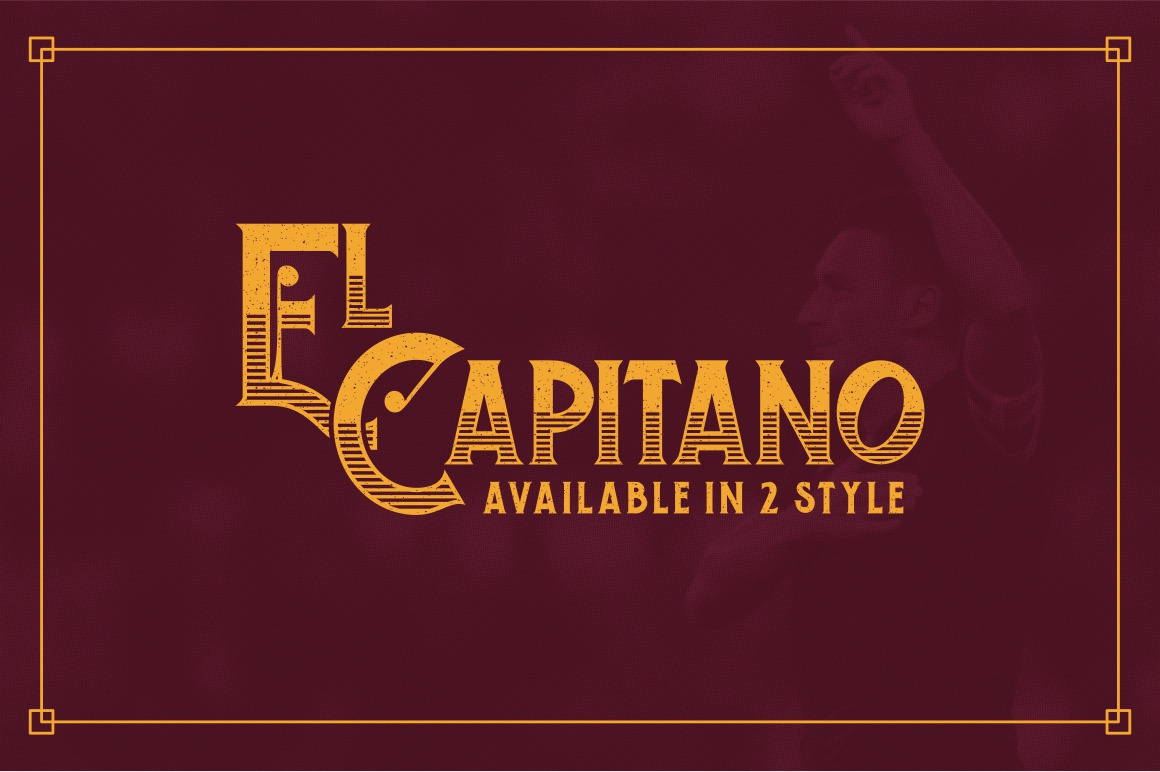
El Capitano Typeface
El Capitano inspired by vintage italian signs, it works for Restaurant sign, Flyer, Poster, and it's strong and dynamic, Available in 2 style. go download now!